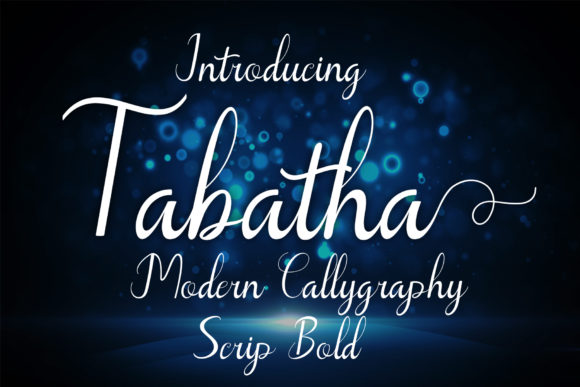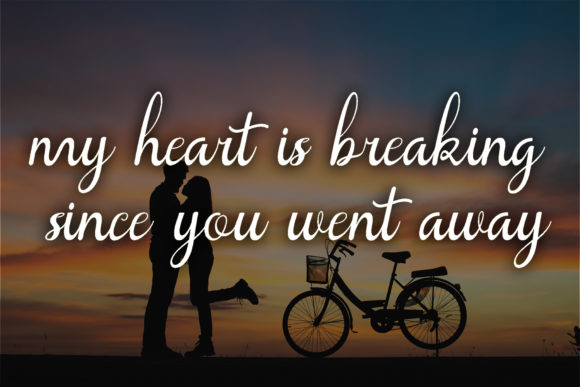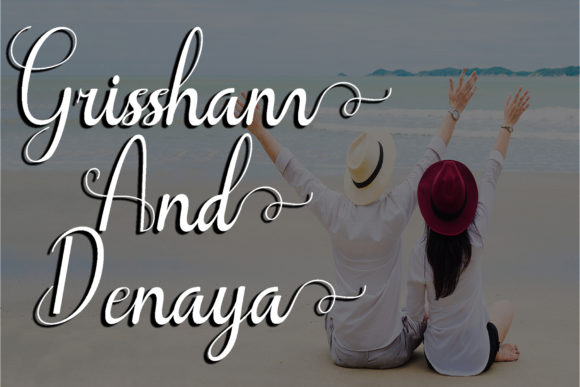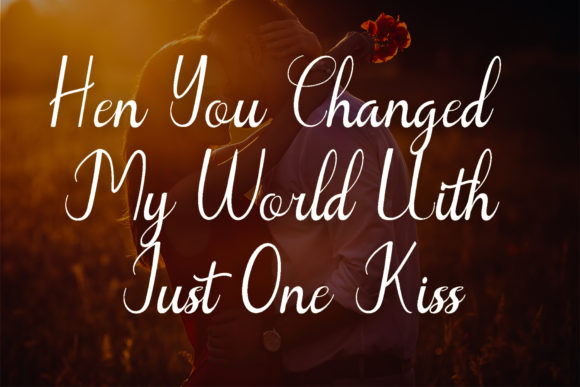
HomeScript FontsTabatha Font Script Fonts Tabatha Font FacebookXPinterestWhatsApp Tabatha Font Poster 2 Tabatha Font Poster 3 Tabatha Font Poster 4 Tabatha Font Poster 5 About Tabatha Font Tabatha is designed with a bold touch and will surely inspire any design project that needs a romantic touch. DOWNLOAD ON CREATIVE FABRICAThis font is sold and delivered by Creative Fabrica. Font Canyon may earn a commission if you buy through this link. People also explored Be KinD Font Bighome Font Livington Duo Font Marquita Precious Font Emerald Triblend Bella Canvas 8413 Mock Quote Font Like Spiderman Font Margit Font Lovebirds Font 333 0 TagsTabatha Font Previous articleAmaterasu FontNext articleSanthana Font LEAVE A REPLY Cancel reply Comment: Please enter your comment! Name:* Please enter your name here Email:* You have entered an incorrect email address! Please enter your email address here Website: Save my name, email, and website in this browser for the next time I comment. Personal Use Free Where the Cookies Personal Use Free Read more about this font Bestlife Personal Use Free Read more about this font Crayones Personal Use Free Read more about this font Gunplay Personal Use Free Read more about this font BLOG Free vs Paid Fonts: Why Investing in Premium Fonts Is Worth It Free vs Paid Fonts: Why Premium Fonts Are Worth It in 2025 The debate of free vs paid fonts continues in the design world. While... Modern Sans-Serif Fonts That Brands Love in 2025 Top 7 Google Fonts Alternatives for Faster and Privacy-Friendly Web Design (2025) Best Fonts for YouTube Videos: Make Your Thumbnails Stand Out